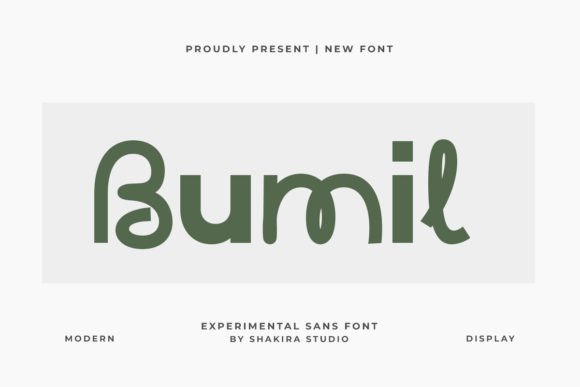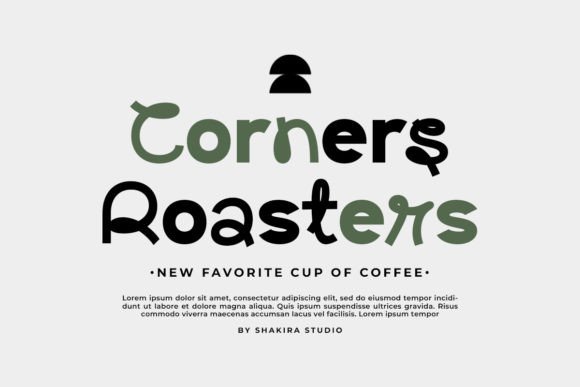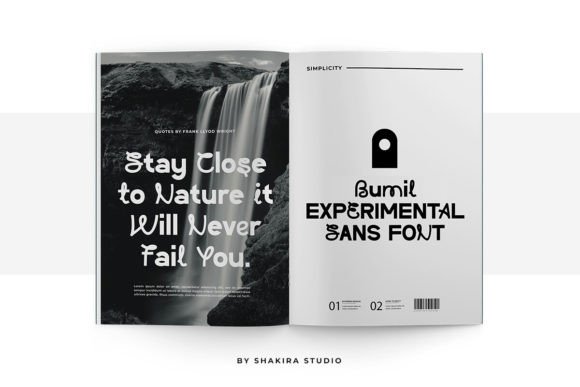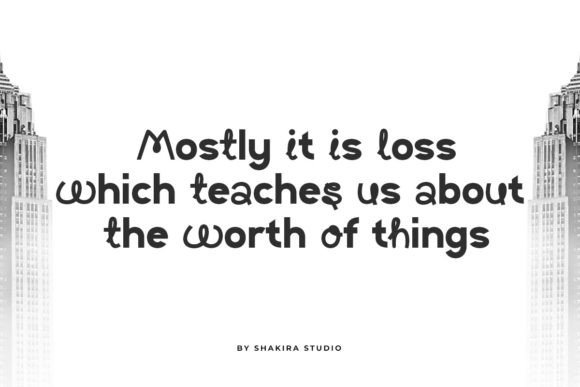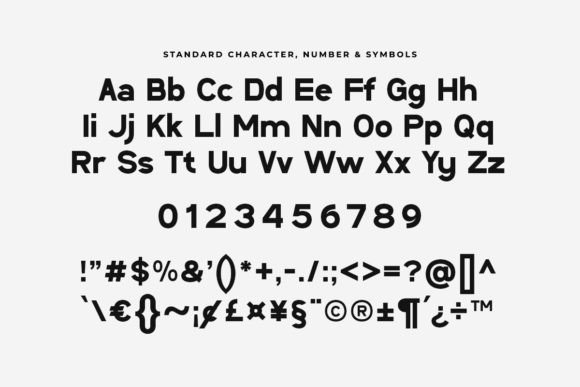
Bumil Font
Introducing Bumil – The Experimental Sans Serif Font with Unique Character!
Bumil is not just another font; it’s a bold experiment in modern typography. Perfectly capturing the essence of #ExperimentalFonts and #TypographyTrends, Bumil is designed to push the boundaries of conventional design.
With its unique characters and stylish alternates, Bumil adds a distinctive flair to any project. Whether you’re working on cutting-edge branding, innovative posters, or creative editorial designs, Bumil’s experimental nature will make your work stand out.
Join the trend towards bold and avant-garde typography with Bumil.